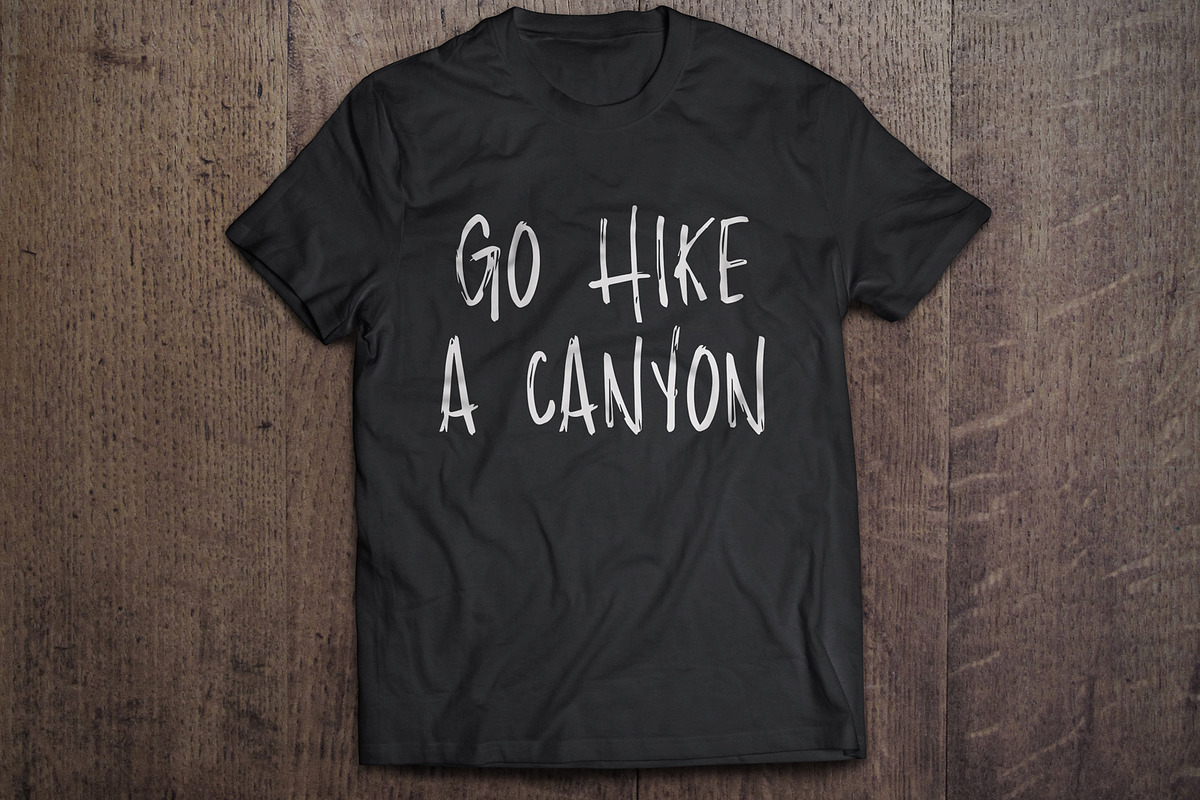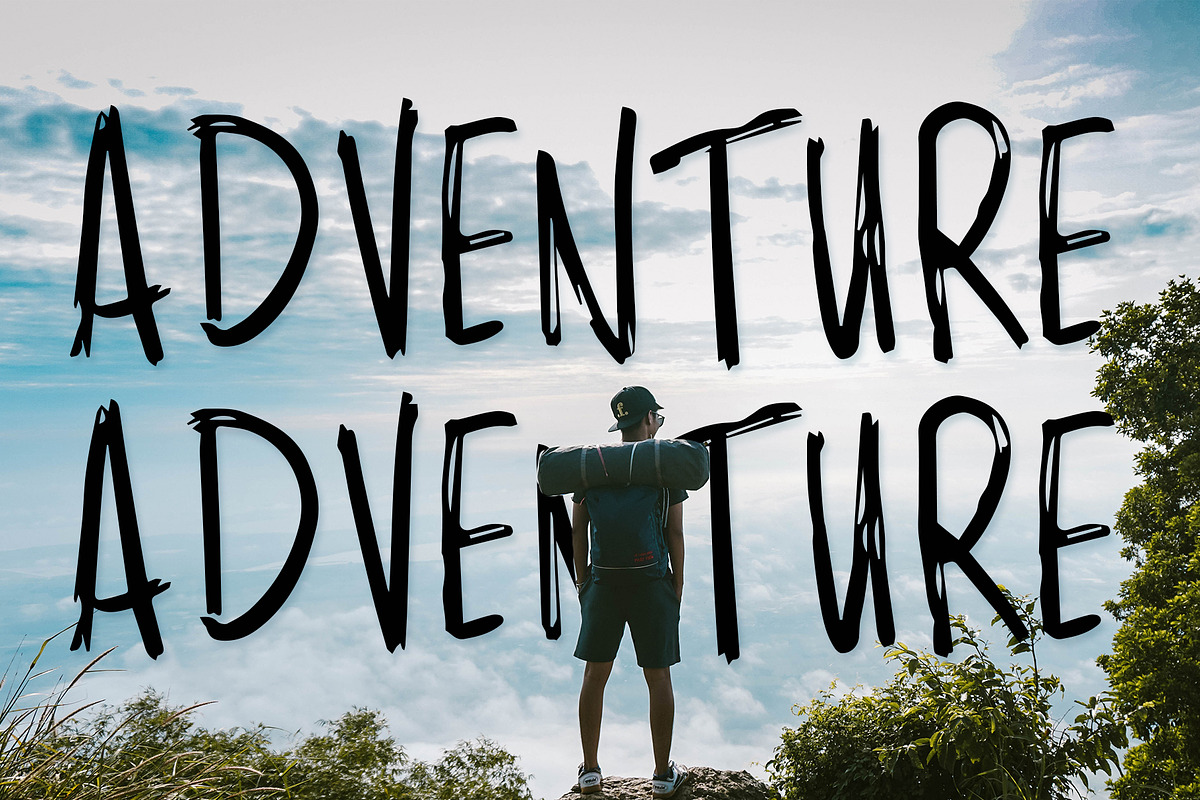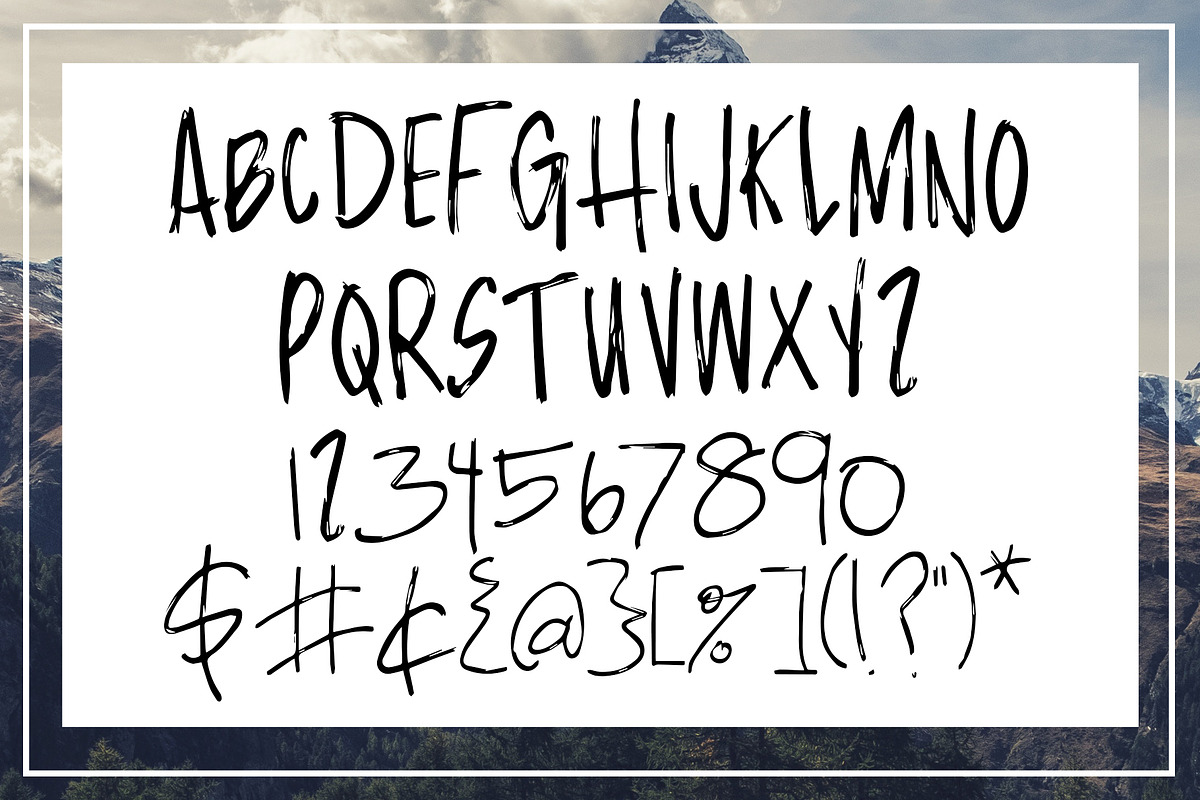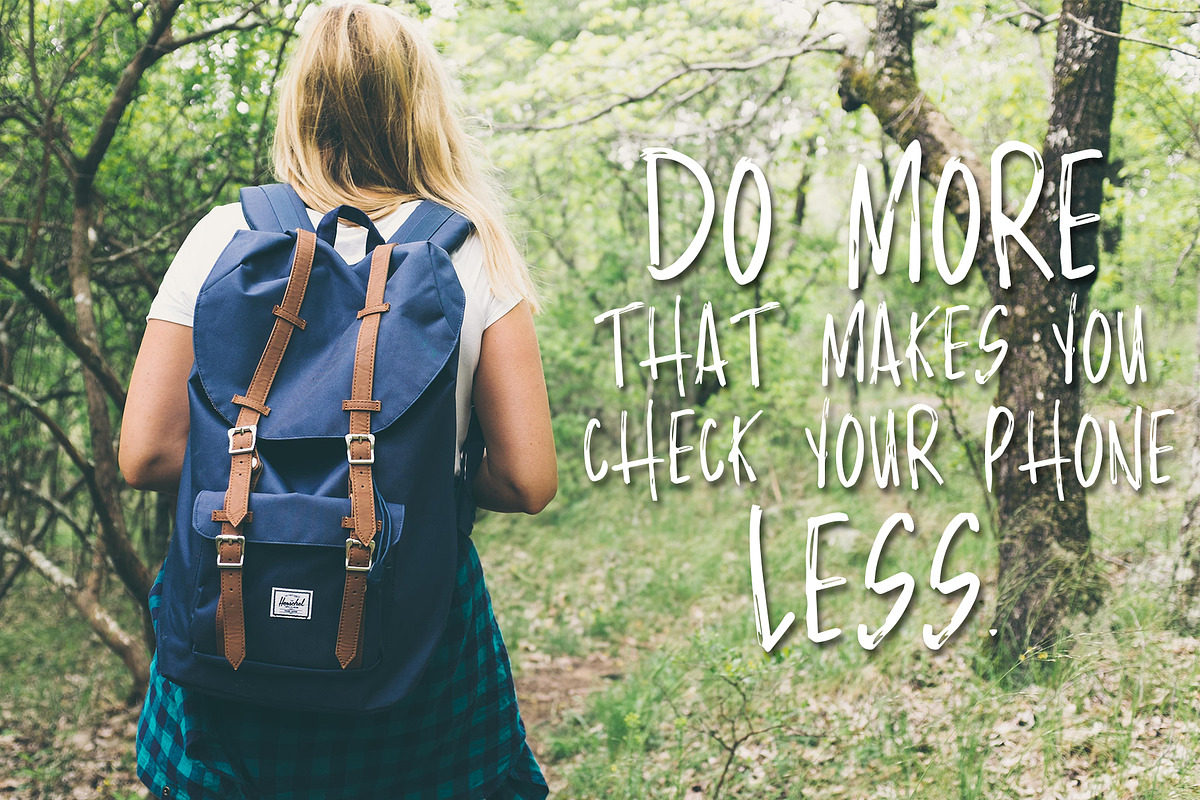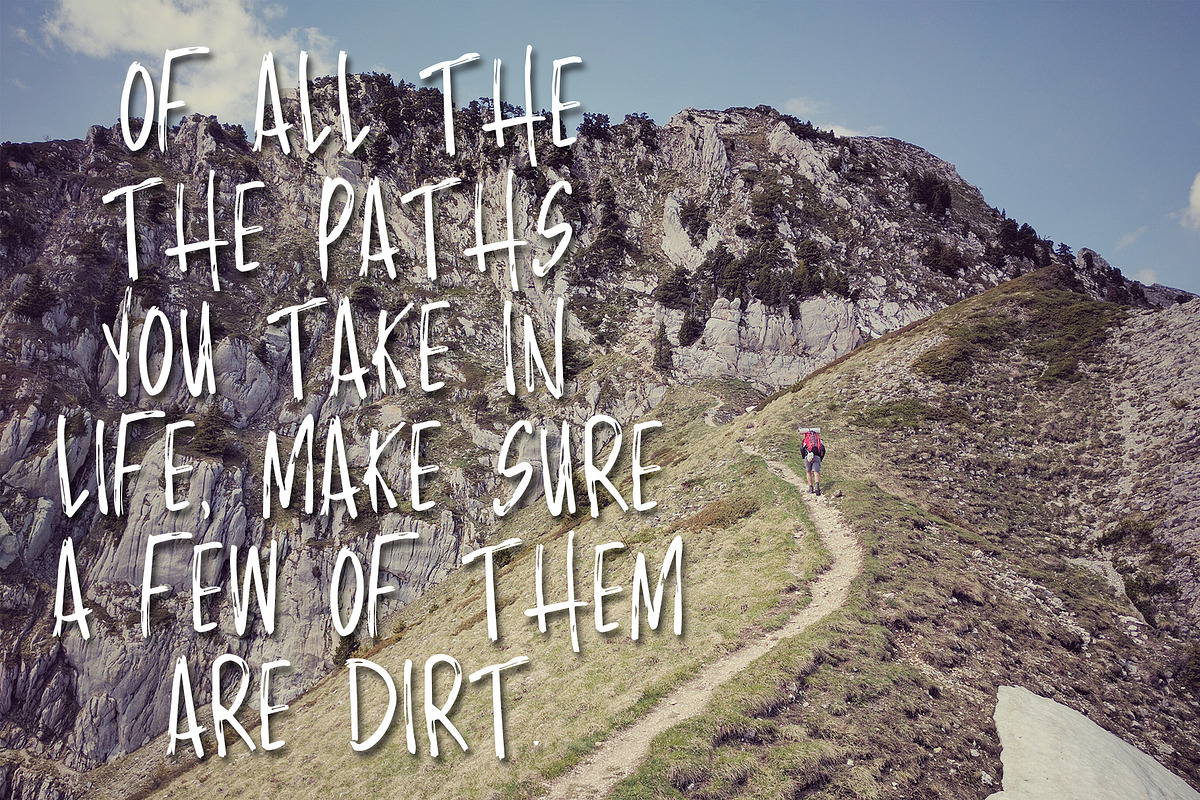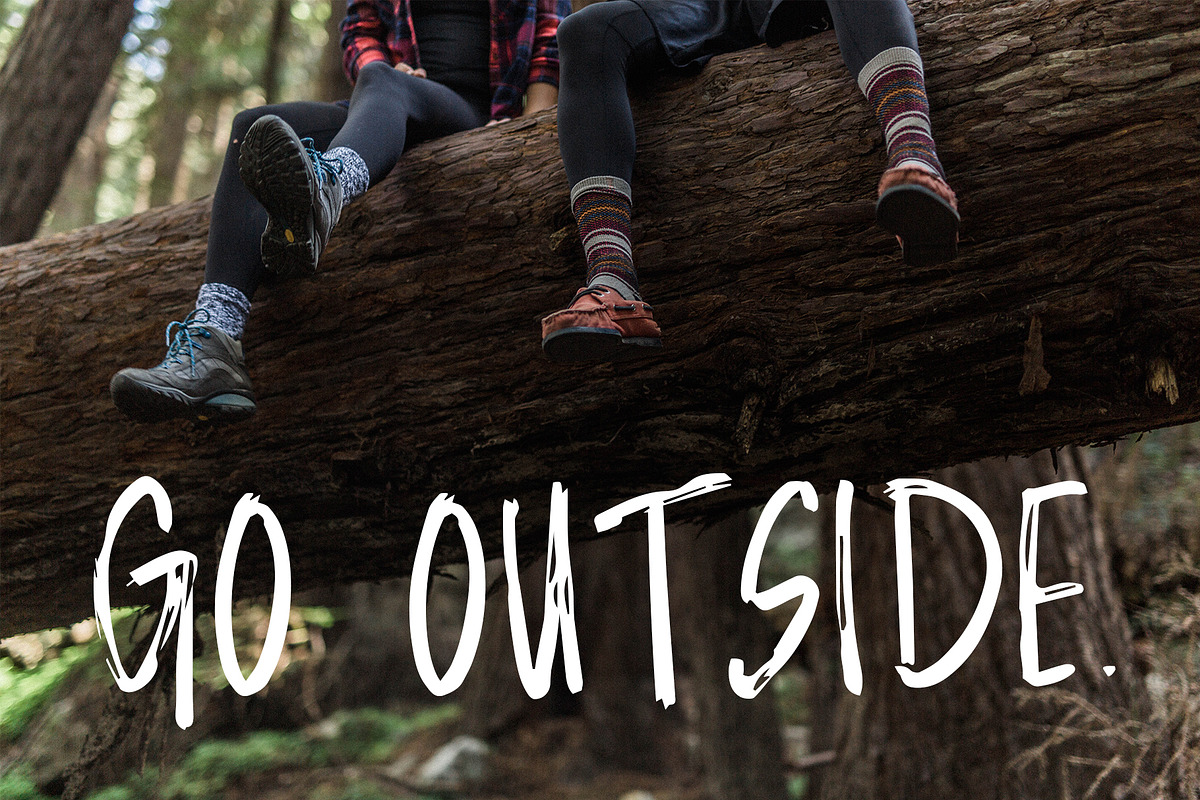
Rocky Brush Font
Rocky is a rugged brush display font, with an outdoorsy feel. Perfect for posters, advertisements, clothing, headlines, and anywhere you want that outdoorsy, rugged feel!
This is an ALL CAPS font. You can still type with all caps or all lowercase, and they will turn out the same!
•A-Z uppercase letters (unicase font, it has no lowercase letters)